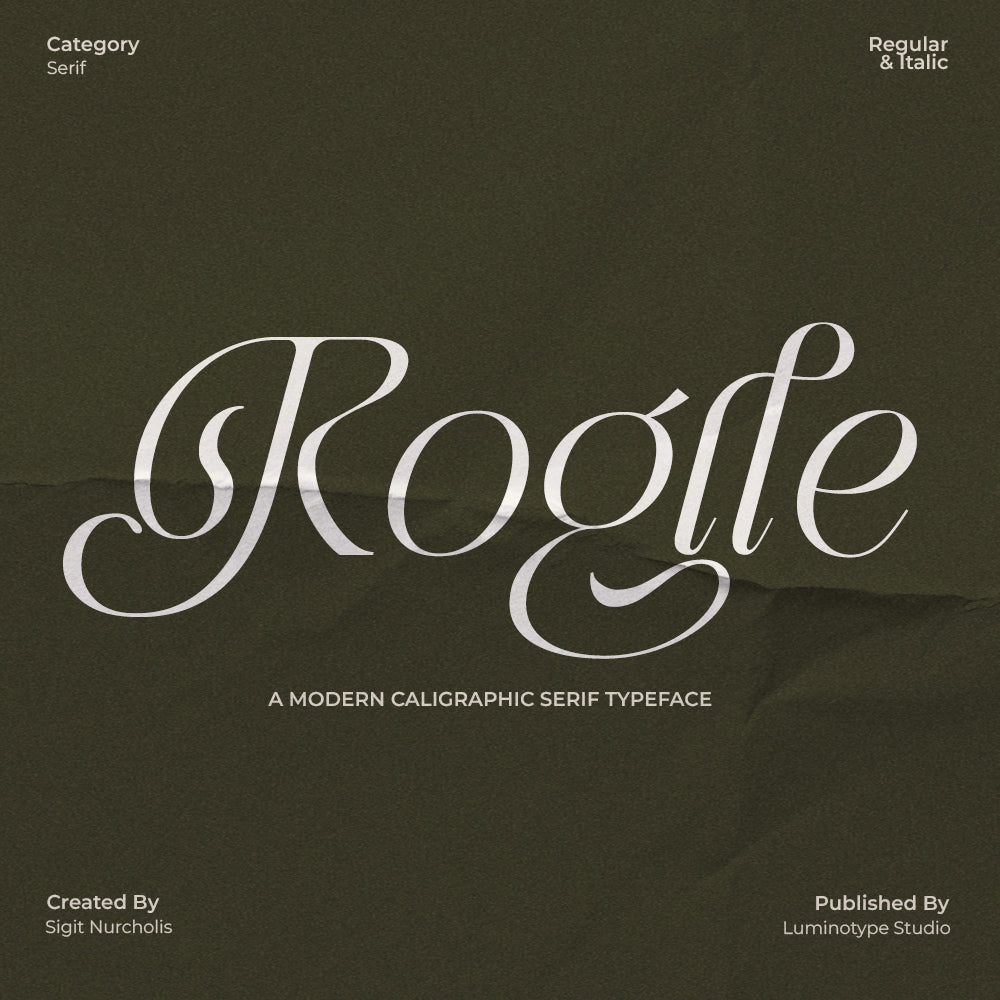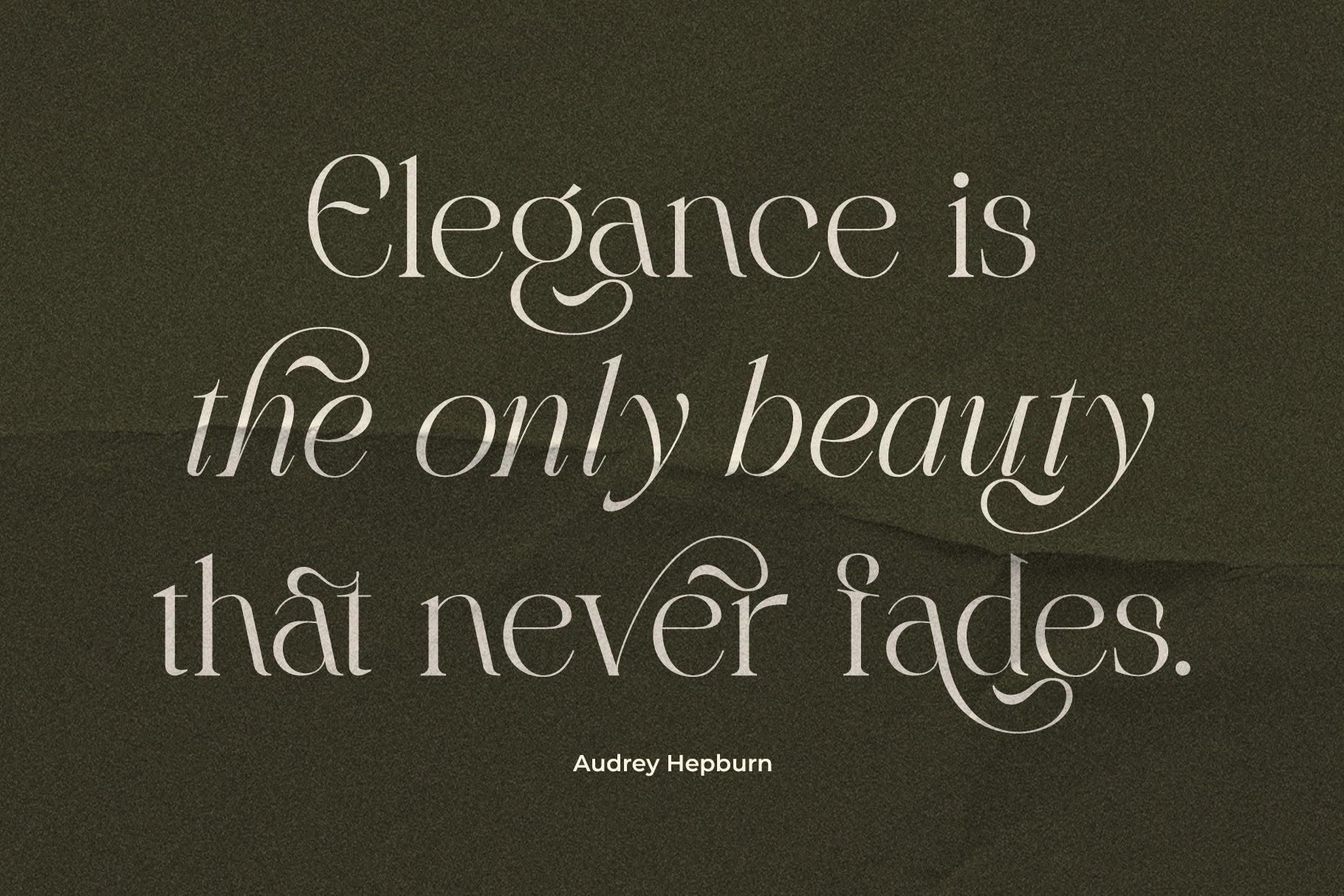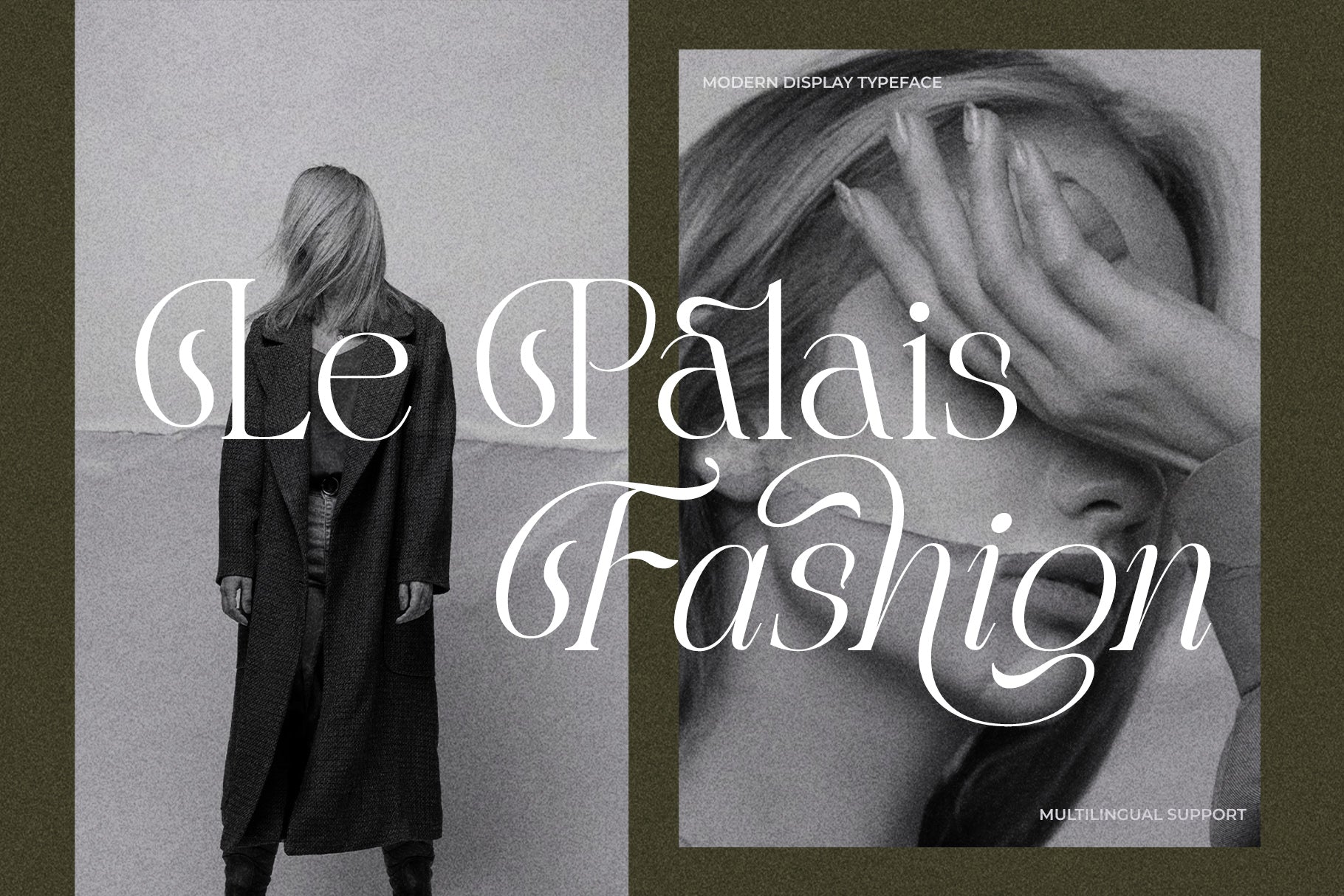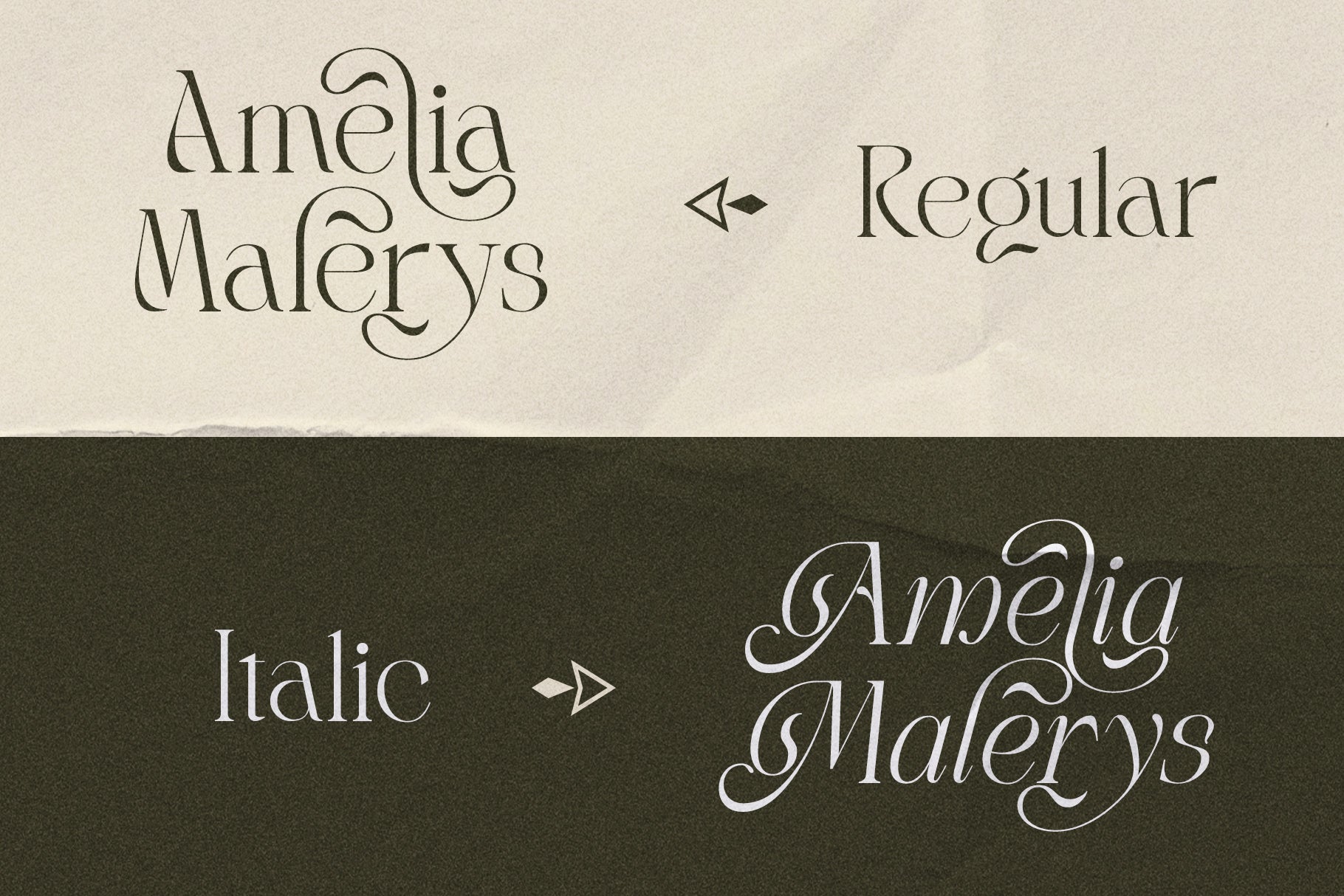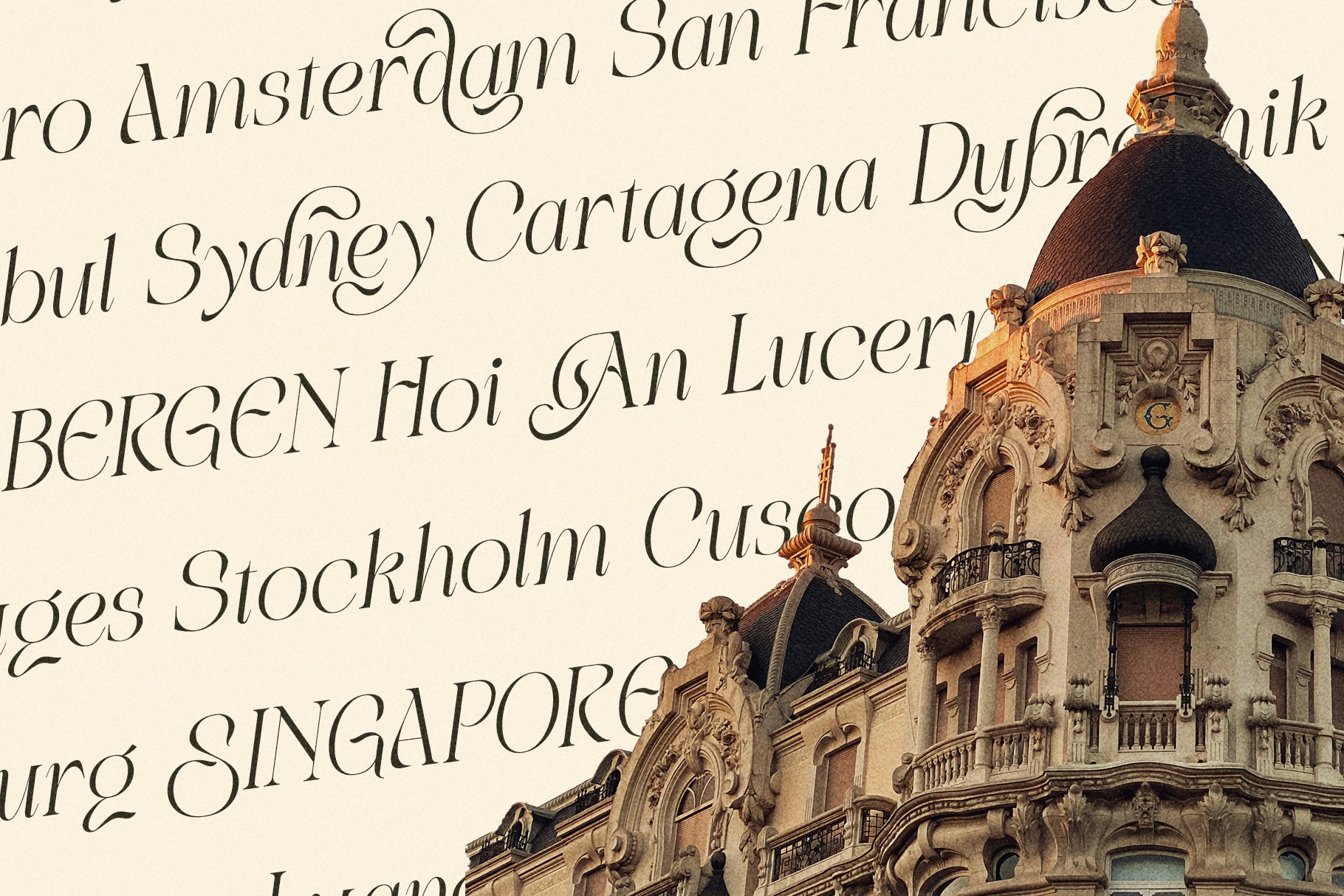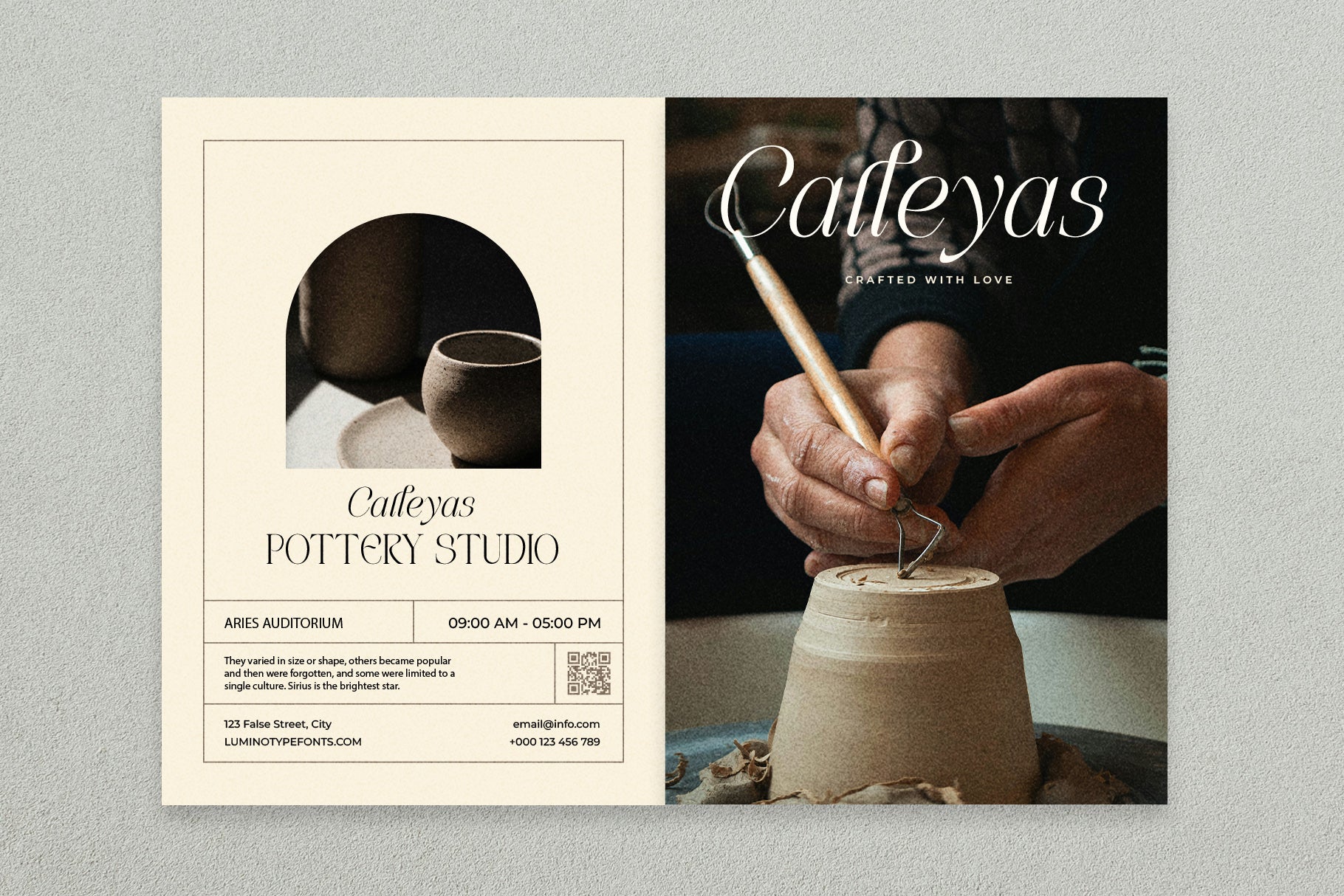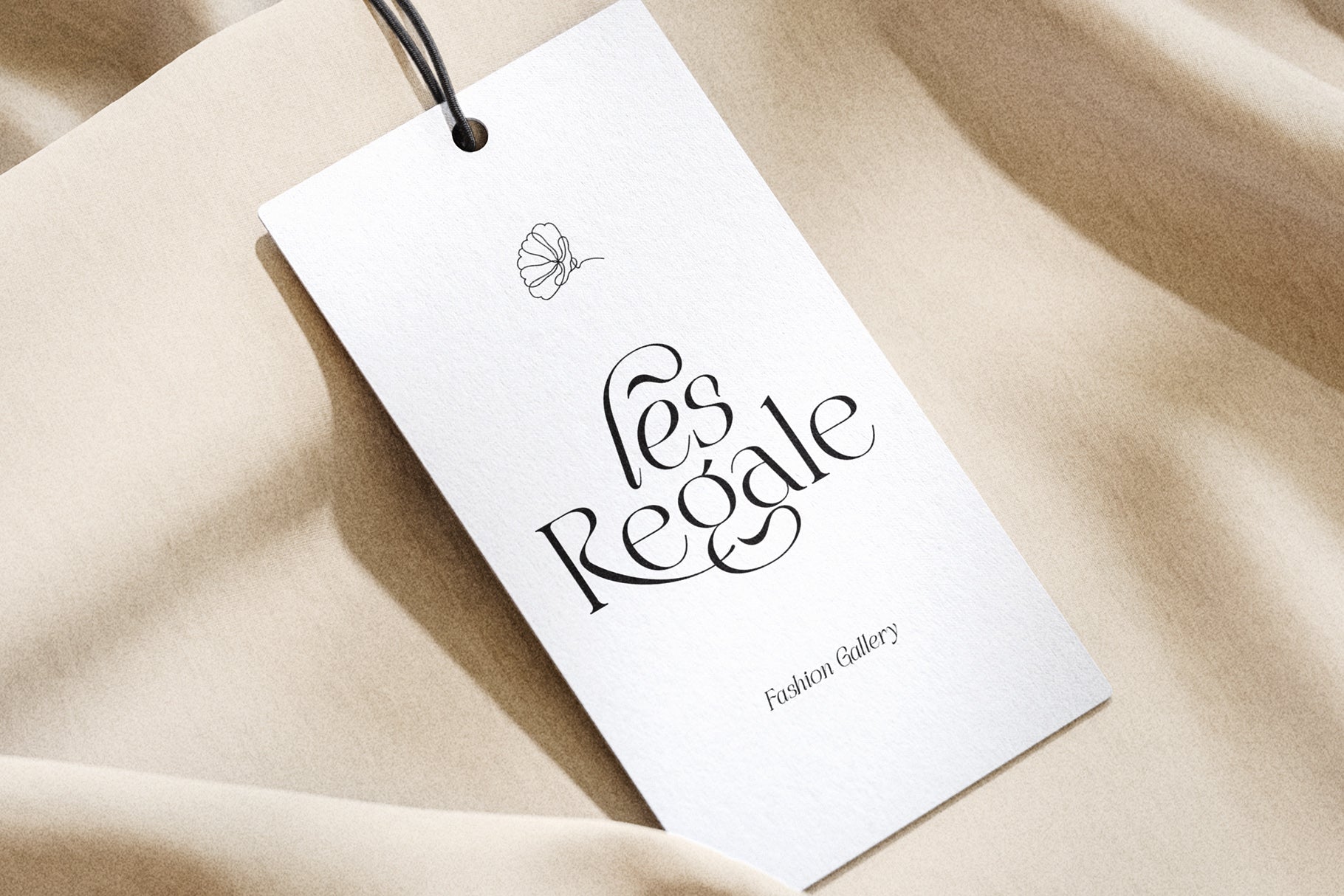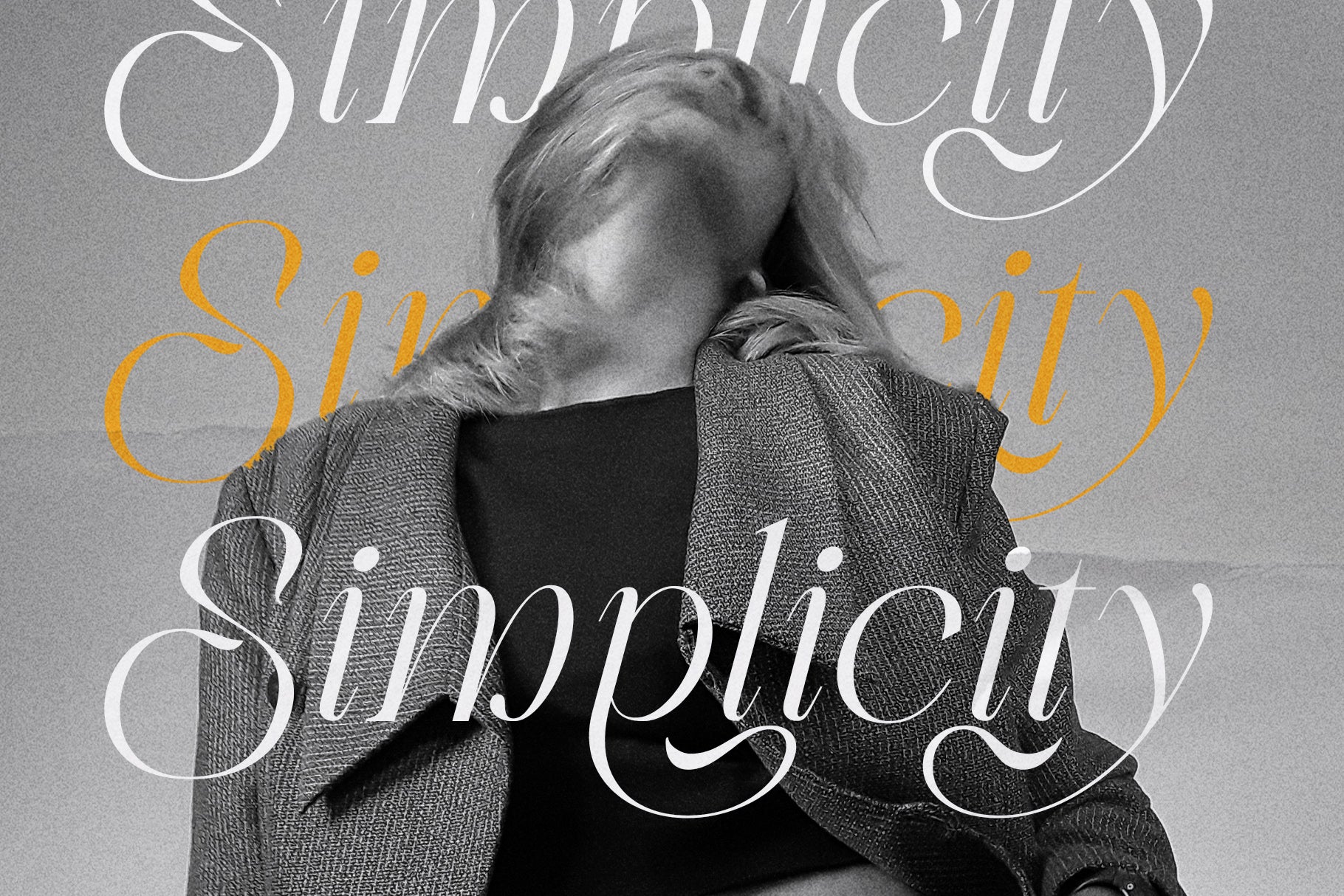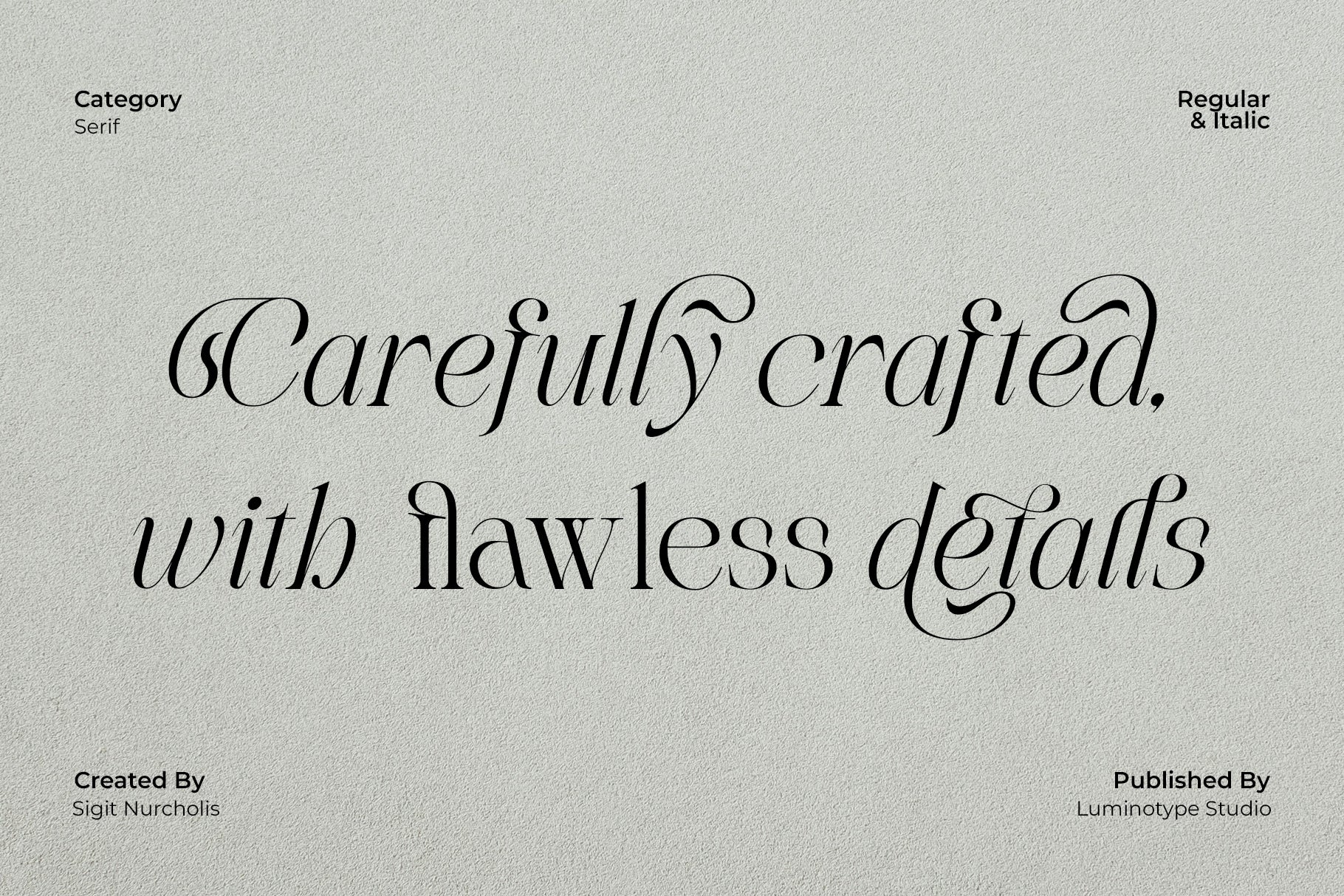
LT Rogile - Modern Serif Typeface
Luminotype
Elevate your creative projects with Rogile, a breathtakingly elegant modern calligraphic serif typeface meticulously crafted with flawless details. Blending the timeless sophistication of classic serifs with sweeping, graceful calligraphic curves, Rogile delivers an effortlessly stylish and luxurious aesthetic. Available in both Regular and Italic styles, this typeface offers smooth contrasts and delicate swashes that instantly command attention. Whether you are aiming for a refined editorial look, a high-end commercial presence, or stunning typography for your fashion brand, Rogile provides the perfect balance of readability and artistic flair, making it the ultimate choice to elevate your visual storytelling.
Best Used In: Rogile is incredibly versatile and serves as the perfect choice for luxury logo designs, premium packaging (such as perfumes and cosmetics), fashion magazine editorials, cinematic movie posters, wedding invitations, elegant quotes, and high-end branding materials.
• Uppercase and Lowercase characters
• Numerals and Punctuation
• Regular and Italic styles
• Beautiful Alternates and Ligatures
• Comprehensive Multilingual Support
LT Rogile is a modern serif typeface that features both Regular and Italic styles, offering uppercase and lowercase characters, numerals, punctuation, and beautiful alternates and ligatures. It includes comprehensive multilingual support and is available in OTF, TTF, WOFF1, and WOFF2 file formats.